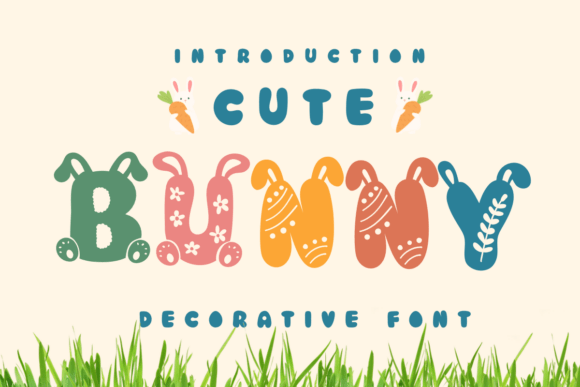
Get Ready to Hug Your Designs with CUTE BUNNY Font!
Have you ever been scribbling in your journal, trying to capture the perfect phrase to express your feelings, when suddenly your pen wanders and creates a cute, bubbly character? That’s the magic of creativity, and it’s exactly what the CUTE BUNNY Font embodies. This adorable Decorative font is designed to bring a smile to your face and add a touch of whimsy to your designs.
Whether you’re writing a heartfelt letter, creating a birthday card, or crafting a social media post, the Cute Bunny Font is a valuable addition to any designer’s toolkit. Its versatility and charm make it perfect for a wide range of projects, from stationery to t-shirts, and everything in between. With the Cute Bunny Font, you’ll be able to infuse your designs with a playful, endearing quality that’s sure to capture the hearts of your audience.
Cute Bunny Font Key Features
• Character Set: This font includes a comprehensive set of characters, including uppercase and lowercase letters, numbers, punctuation marks, and special characters, making it suitable for various applications.
• Unique Characteristics: The font’s distinctive bunny-inspired design elements, such as the rounded letters and cute facial expressions, add a playful touch to any text.
Cute Bunny Font Review
I recently had the chance to play around with the Cute Bunny Font, and I must say it’s a unique addition to any design project. ✨ The whimsical feel of the font immediately drew me in, and I appreciated how it can be used to add a touch of playfulness to digital or print materials. The design is clear, easy to read, and visually appealing, making it suitable for a wide range of applications.
One of the standout features of the Cute Bunny Font is its versatility. It comes in multiple weights, from light to bold, allowing designers to easily adjust the font’s style to suit their needs. Additionally, the font includes a range of ligatures and ornaments that can be used to add an extra layer of visual interest. ✨ These details demonstrate a clear attention to detail and a commitment to quality.
• ⚠️ The font may not be suitable for formal or professional applications, as its playful nature may come across as immature or unprofessional.
• ⚠️ Some users may find the font too cutesy or over-the-top, which could be a turn-off for those seeking a more subtle design aesthetic.
Overall, I think the Cute Bunny Font is a fun and creative addition to any design project. While it may not be the best choice for every application, it’s a great option for designers looking to add a touch of whimsy and personality to their work. With its clear design and versatility, I’d recommend giving it a try.
Tips for Getting the Most Out of the Cute Bunny Font
For the best results, use the Cute Bunny Font in conjunction with pastel colors and whimsical illustrations. You can also experiment with font combinations to create a unique look.
The Cute Bunny Font is perfect for:
• Children’s party invitations and decorations
• Gift tags and cards
• Food and dessert labels